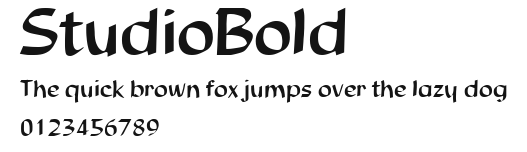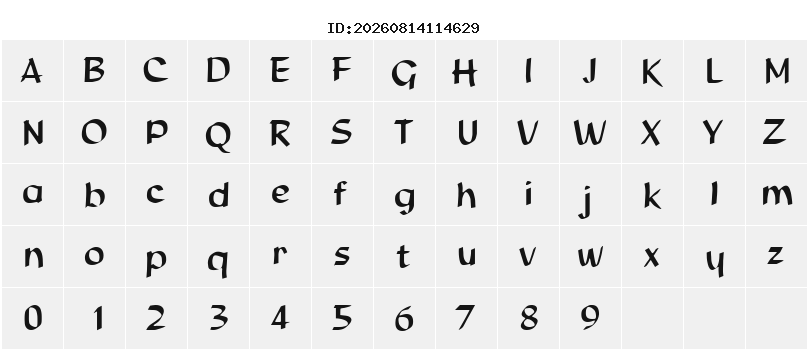
StudioBold Preview
• Font Name: StudioBold
• Full Font Name: StudioBold
About StudioBold.ttf
StudioBold.ttf is a modern, elegant sans-serif font designed for ultimate readability and visual harmony. Perfect for branding, headlines, web design, and print materials.